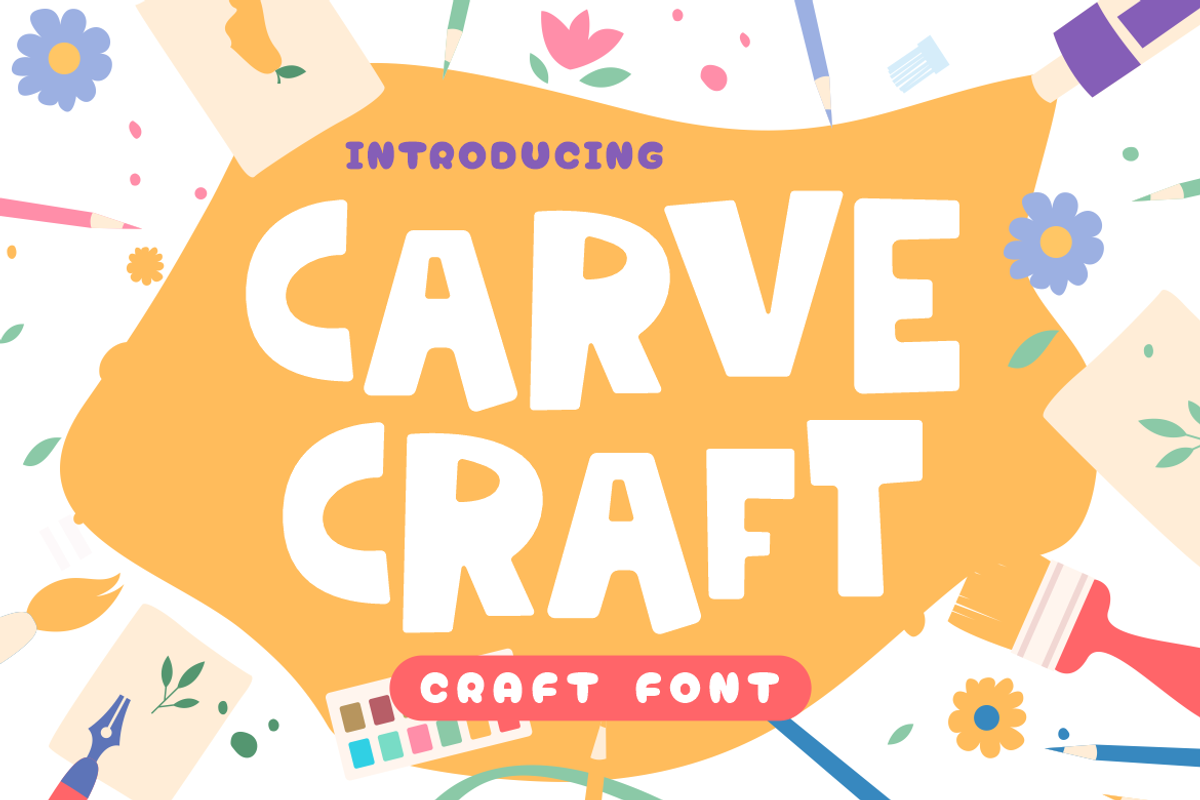
Carve Craft Font Free Download is a handmade-inspired typeface that captures the charm of carved lettering and DIY aesthetics. With its slightly rough edges, playful personality, and rustic vibe, this font is perfect for craft projects, labels, signage, packaging, farmhouse decor, and anything that needs a cozy, creative touch.
Designed to feel like it was cut, stamped, or chiseled by hand, Carve Craft brings warmth and authenticity to both print and digital designs. It’s ideal for makers, small businesses, and designers who want to give their work a homegrown, heartfelt feel.
Whether you're crafting a product tag or a cozy quote, this font adds personality and handmade flair.